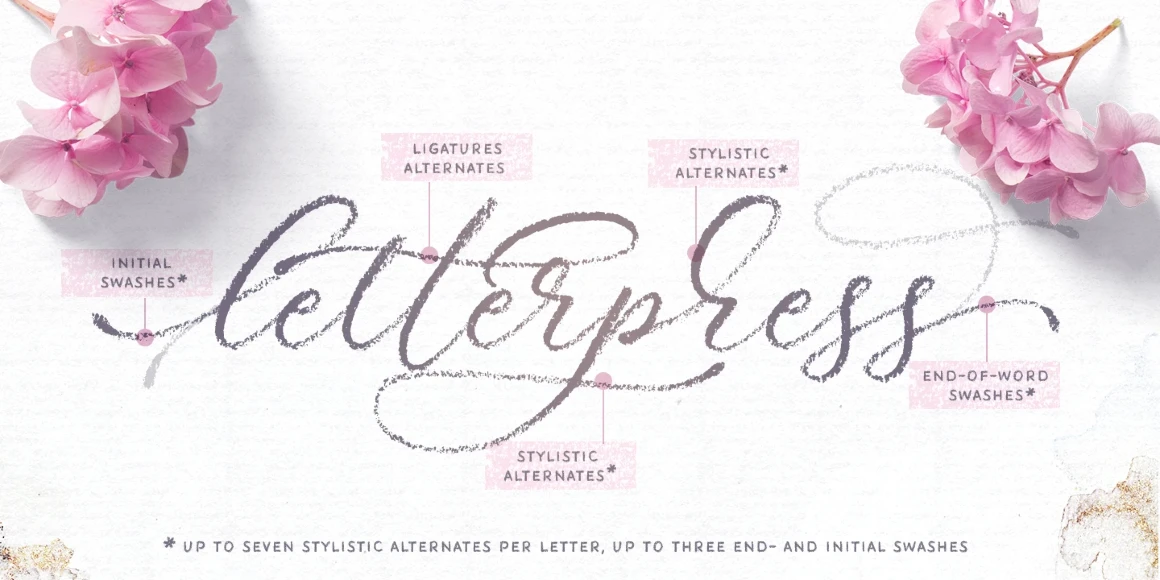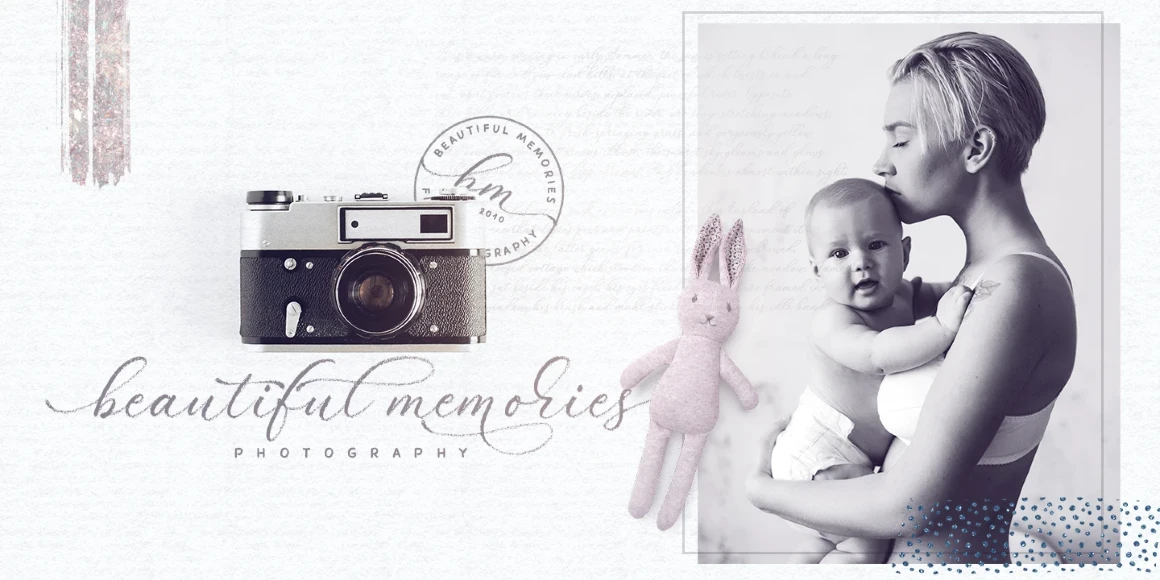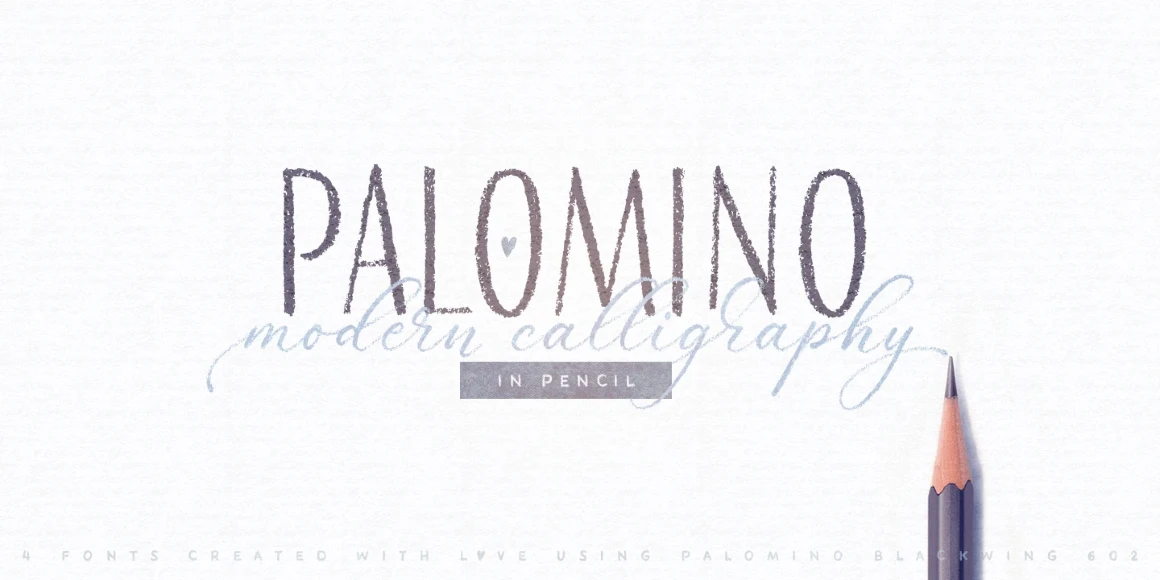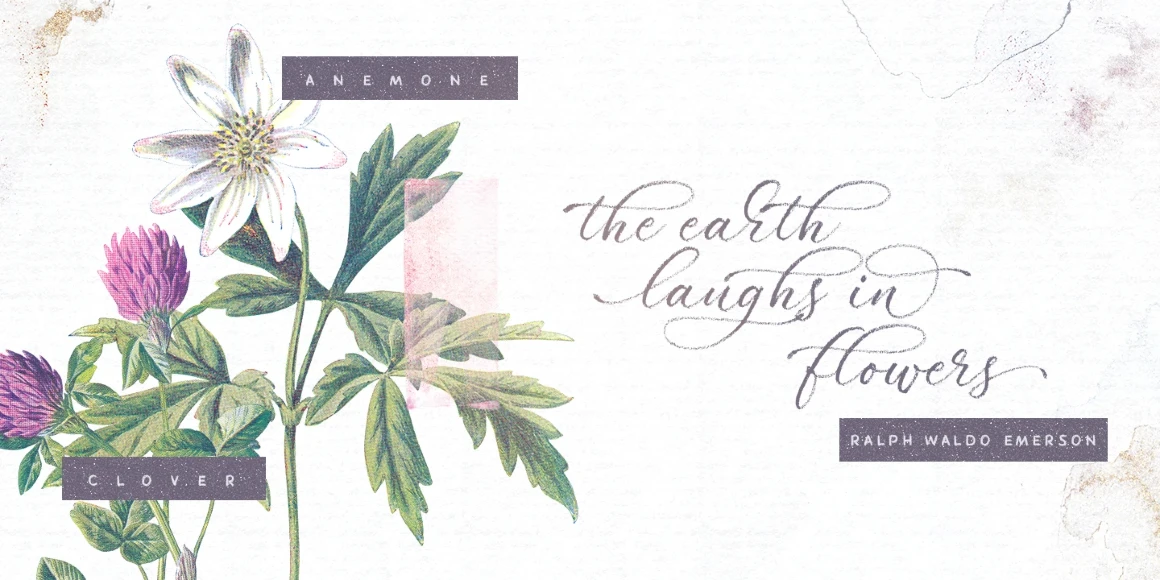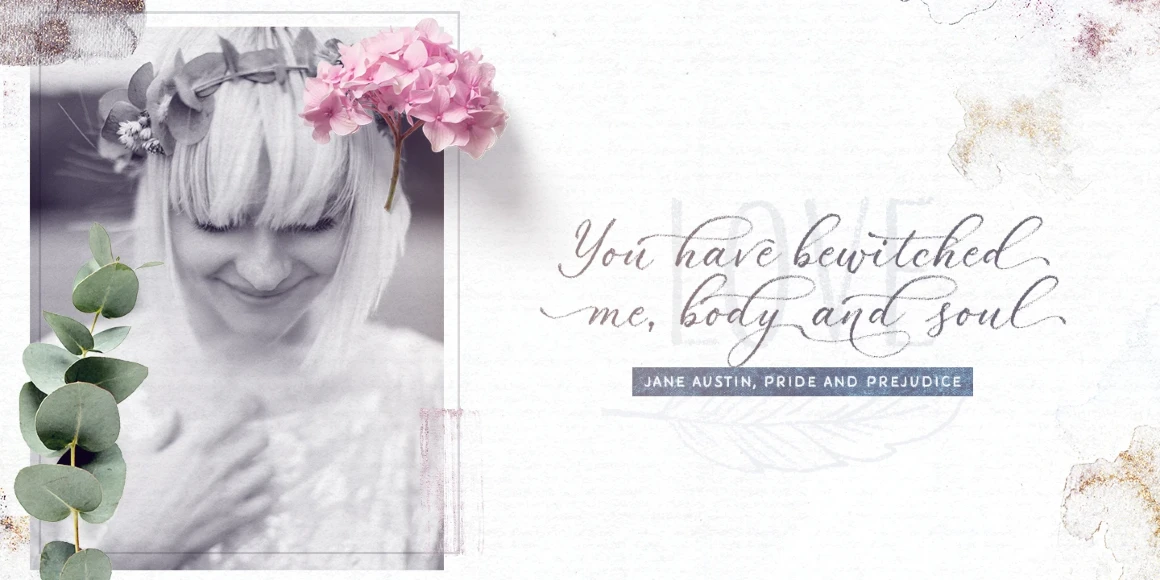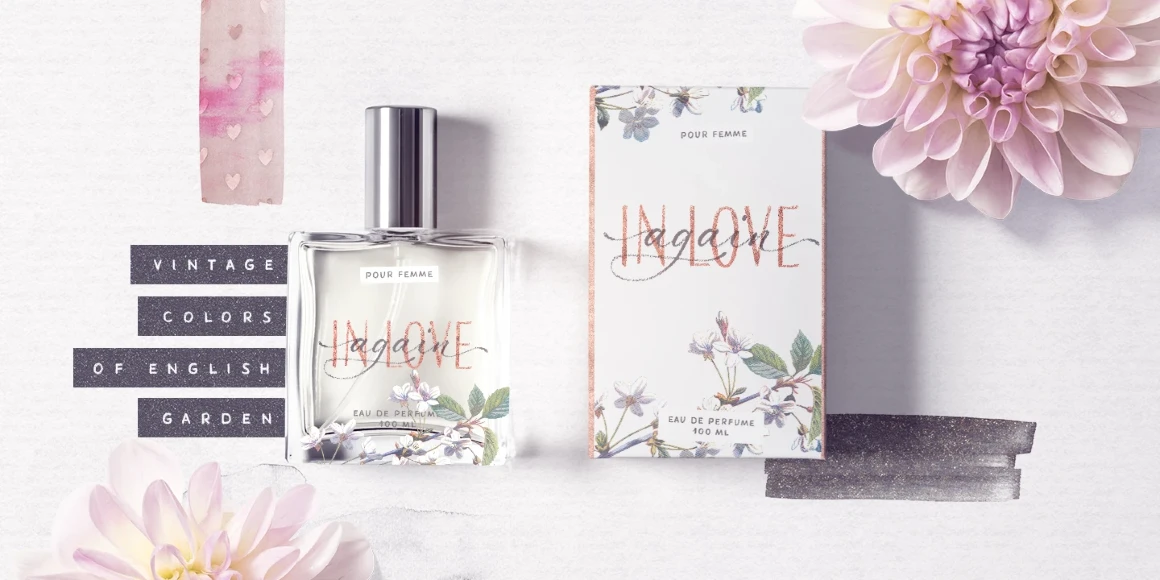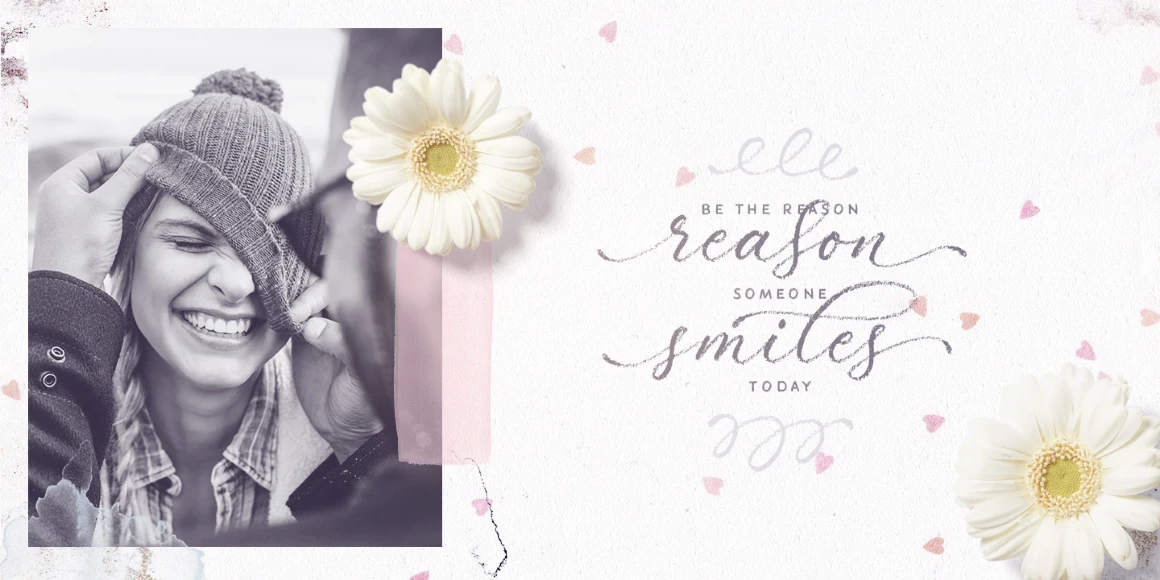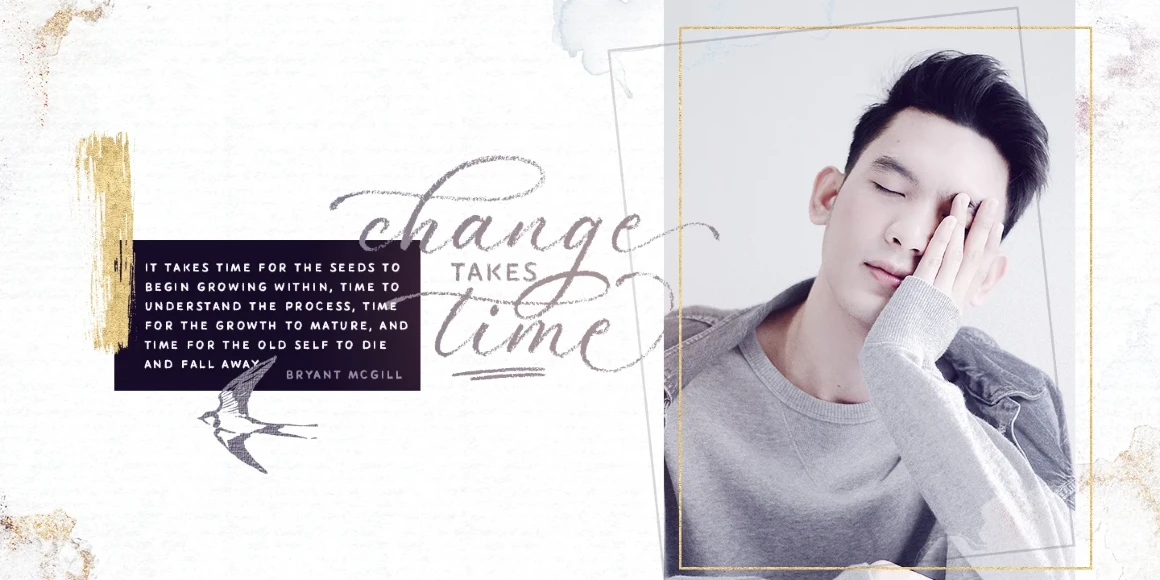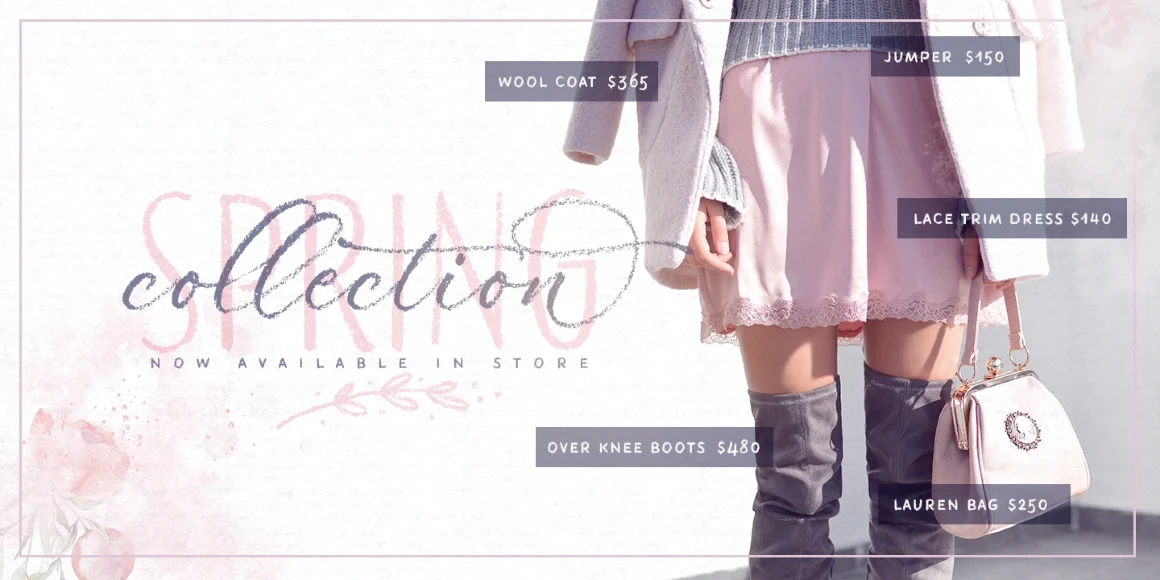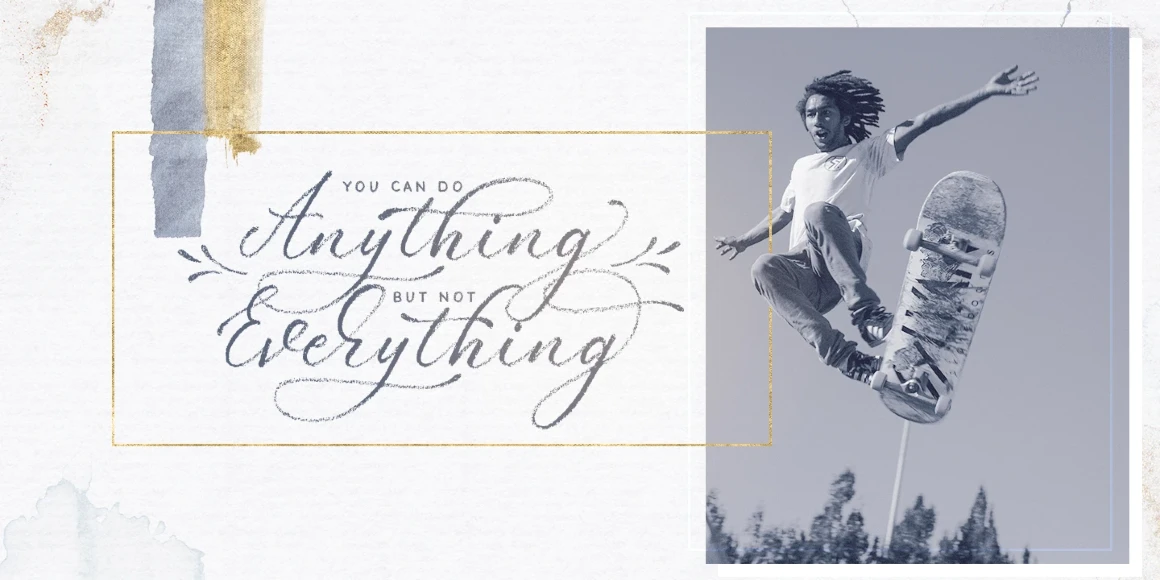
Palomino Sans Two
By Elena Genova
Palomino Sans Two Clean
Palomino Sans Two Rough
Palomino is an elegantly modern, multiple-classification calligraphic family. The typefaces are available in beautifully Clean and subtly Rough styles. Palomino Sans Two is a semibold, uppercase design perfect for smaller, stylistically similar, supportive text. While each face is unique, the Palomino collection works perfectly together, allowing you to create stylish, elegant designs with a handwritten look. Fashion, e-commerce brands, wedding boutiques, photography, personal quotes, and more!